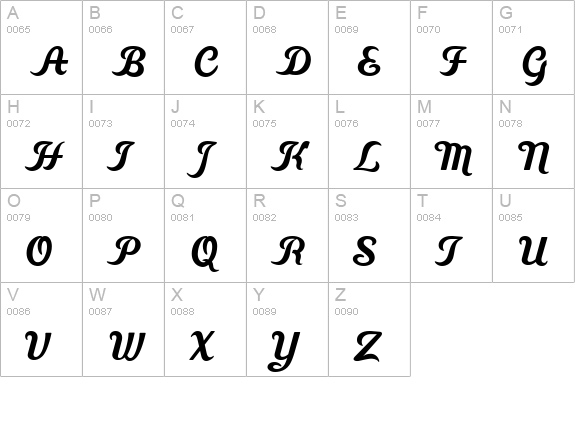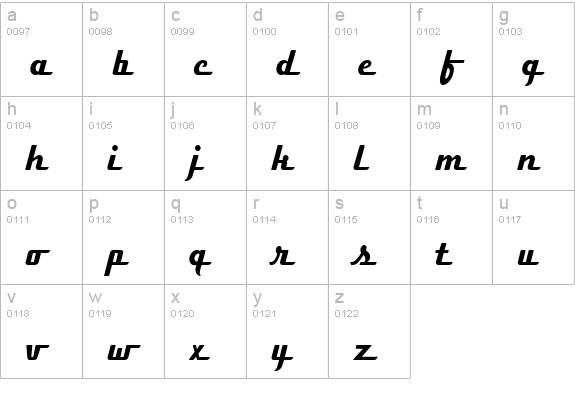
BoxerScriptJF Font Details
BoxerScriptJF is a dynamic and energetic font that exudes a sense of strength and movement. Its bold strokes and playful curves give it a unique and engaging look that is perfect for bringing a sense of action and excitement to any design project. Whether you're looking to add a touch of personality to your branding, create eye-catching headlines, or design impactful signage, BoxerScriptJF is sure to make a statement. And the best part? This font is available for free download at FontsMarket.com. So go ahead and unleash your creativity with BoxerScriptJF today!